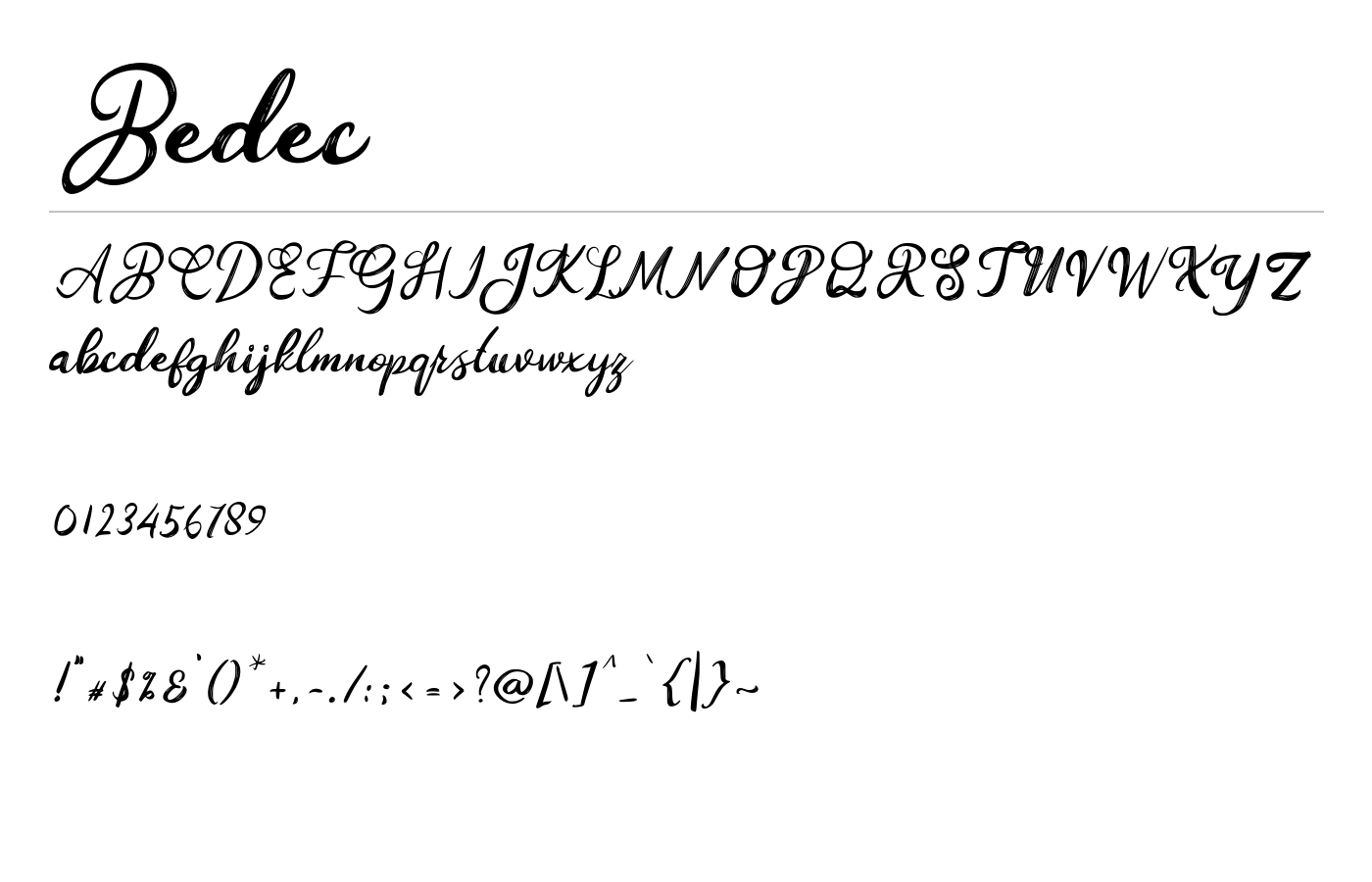
Bedec is an elegant script font with a handwritten feel, featuring smooth, flowing strokes and a refined, slightly playful character. Its moderate contrast and cursive letterforms make it perfect for invitations, branding, and decorative use where a personal and sophisticated touch is desired. This font shines in projects that seek to blend classic charm with a warm, approachable style.
Bedec Font